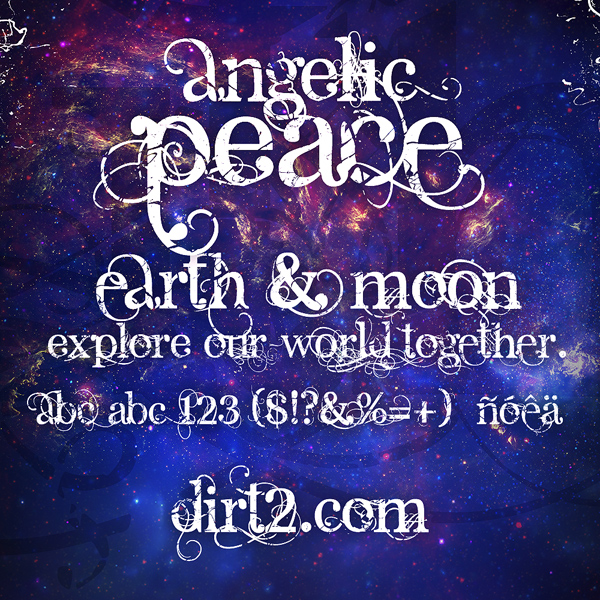
v1.1 - You can buy Angelic Peace at my shop for commercial use at SickCapital.com -------------------------------------- This is a revised version of Angelic War and is based off many characters in Angelic Serif. I redid the font so that the letters were a bit more updated and unique as well as to be able to reduce the amount of noise when the font was printed on products. You can see a quick comparison picture here: dirt2.com/image/details.jpg |